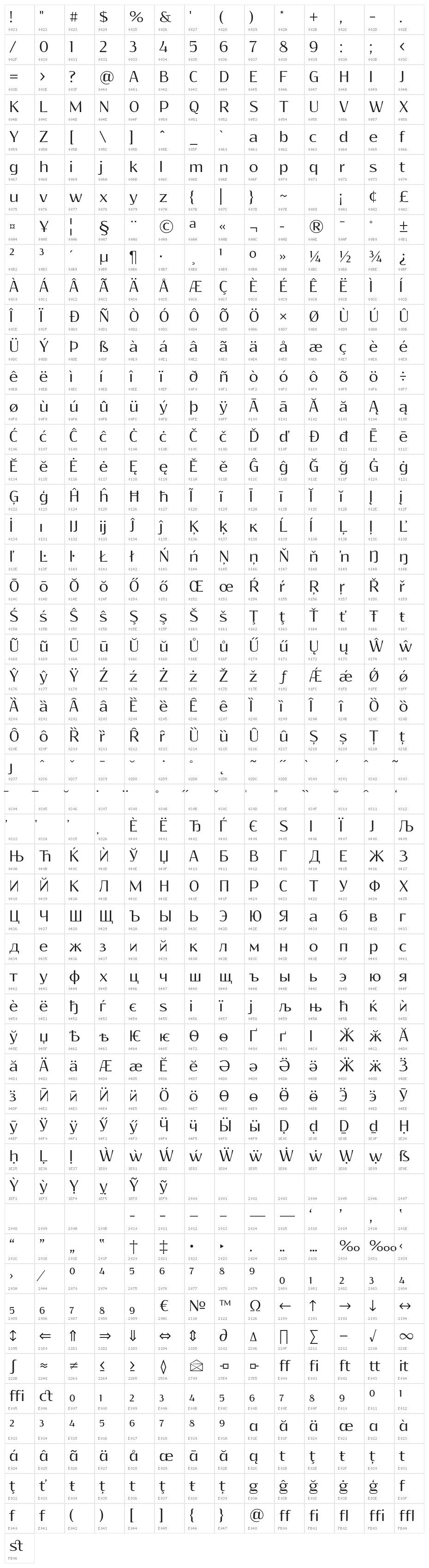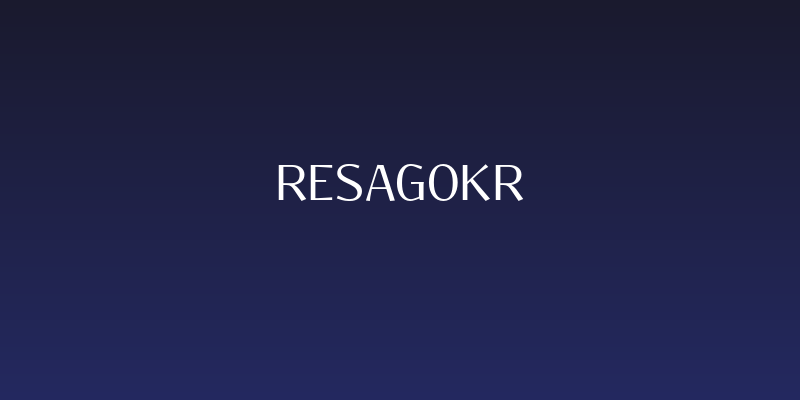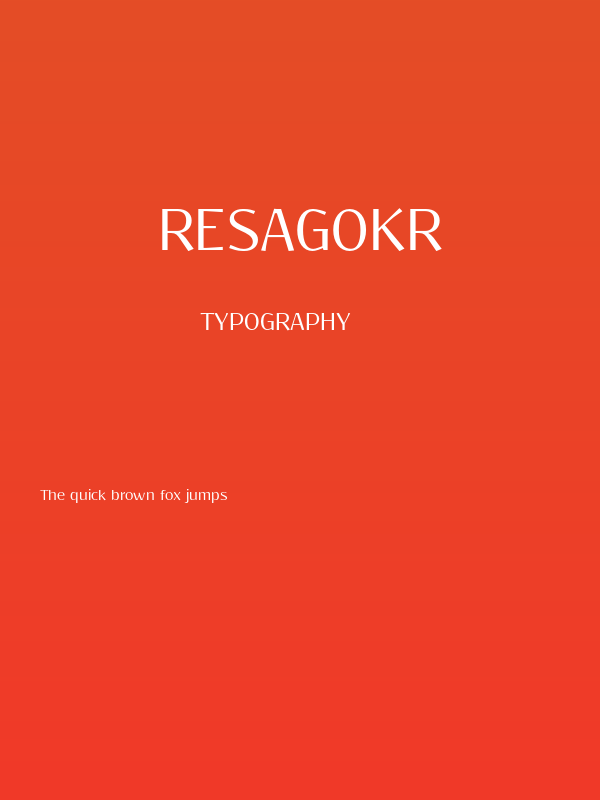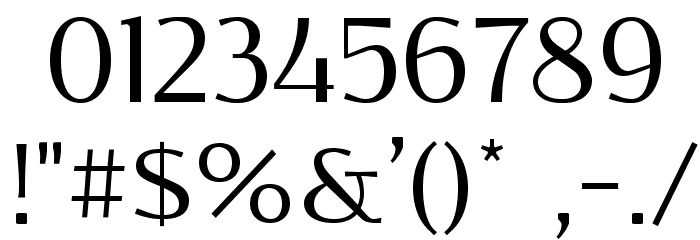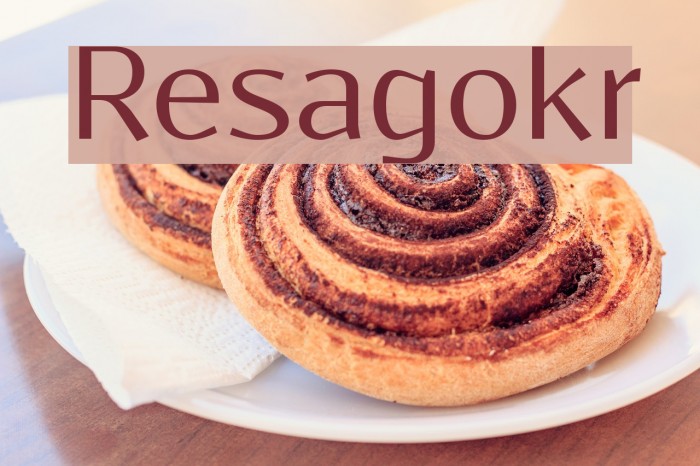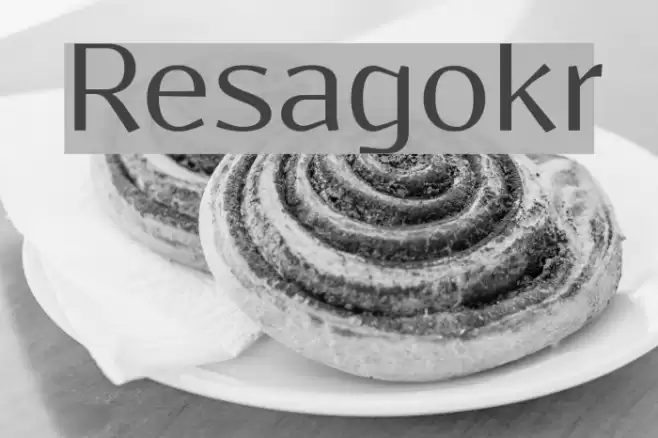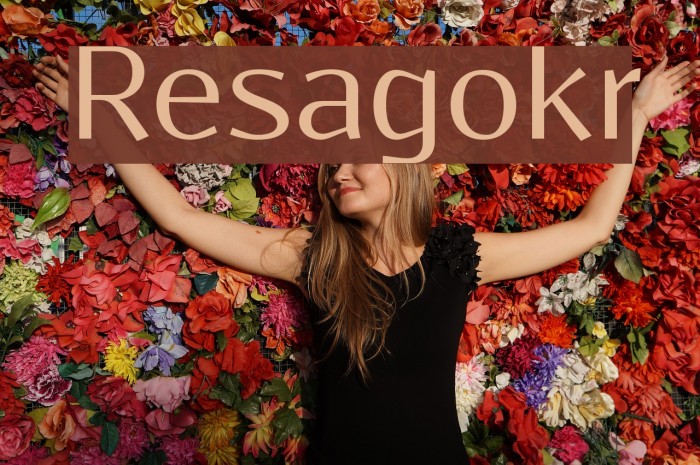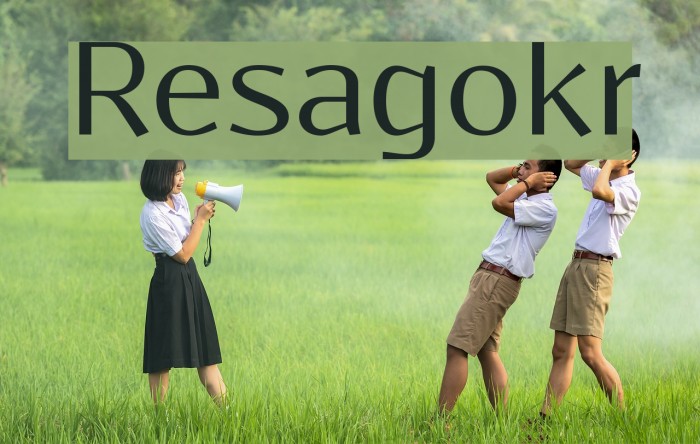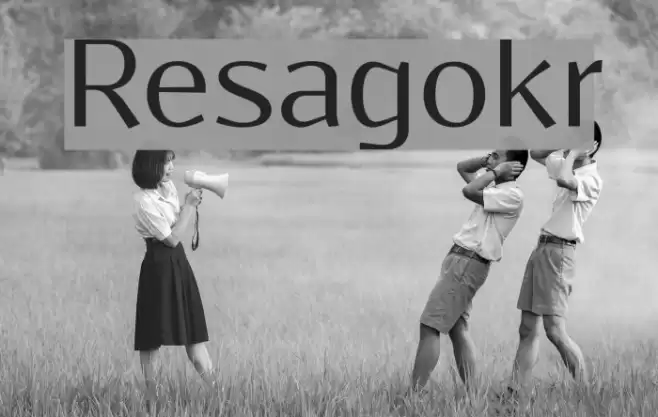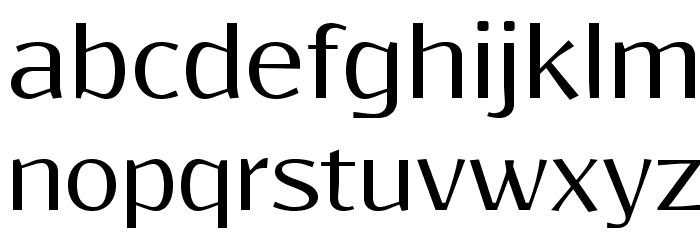
Resagokr Font
Resagokr Description
This font features a clean and modern sans-serif design with a balanced and uniform appearance. The characters are sleek and slightly condensed, providing a contemporary feel. The uppercase letters are bold and assertive, while the lowercase letters maintain a smooth and approachable style. The numerals are clear and easy to read, making them suitable for various applications. Special characters are well-integrated, ensuring consistency across different uses. The overall design is versatile, making it suitable for both digital and print media.
| Width | Condensed |
| Use Case | Headlines, Body text, Logos |
| Proposed Projects | Ideal for branding, web design, advertising, and editorial projects. |